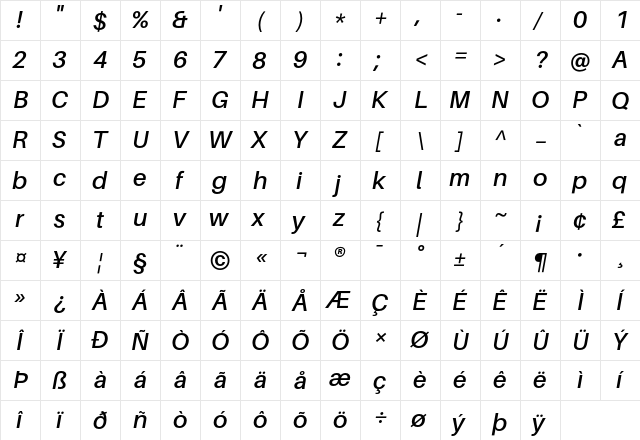
Aileron SemiBold Italic
Design Context for Aileron SemiBold Typeface
Aileron SemiBold takes a measured approach to typography — its balanced proportions and neutral character make it a reliable workhorse for both digital and print work. The slanted form adds forward momentum and visual energy. The heavy weight commands attention and anchors typographic hierarchies.